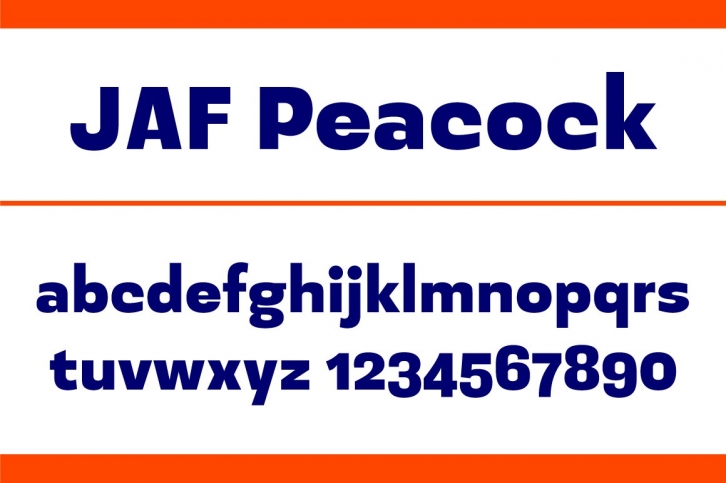
Design: Brian Jaramillo with Tim Ahrens, 2010
JAF Peacock is a display family inspired by the flair typefaces of the 1970s. It contains more than 1,200 glyphs, and offers the designer a complete toolbox of contex­tual and styl­istic altern­ates as well as exten­ded language support. JAF Peacock was produced in a collab­or­a­tion between Brian Jara­millo and Tim Ahrens.
The standard style (Peacock Bold) contains all glyphs, including alternates, which are accessible in most design applications via OpenType features. For applications that do not fully support OpenType features, such as MS Office, we included the alternates as five additional stand-alone fonts.